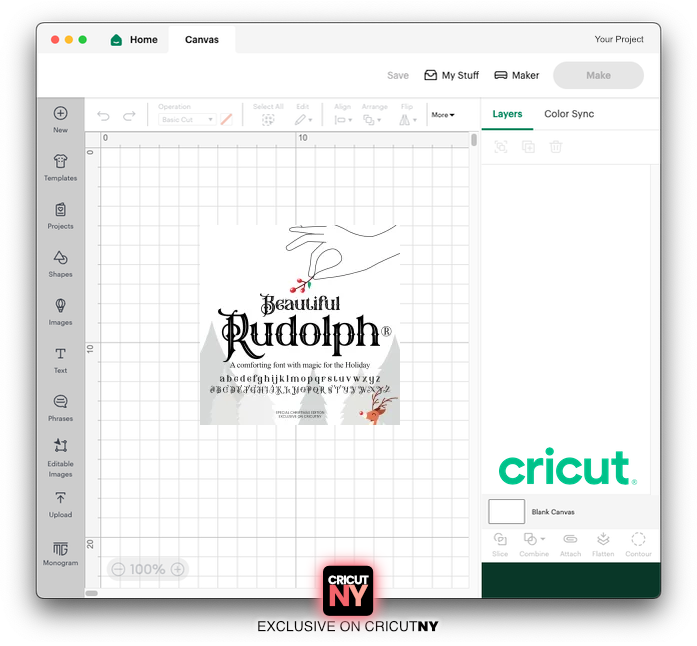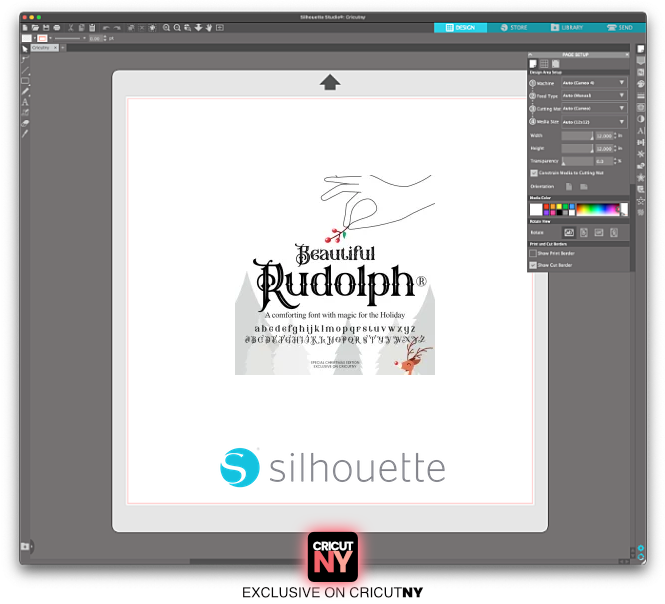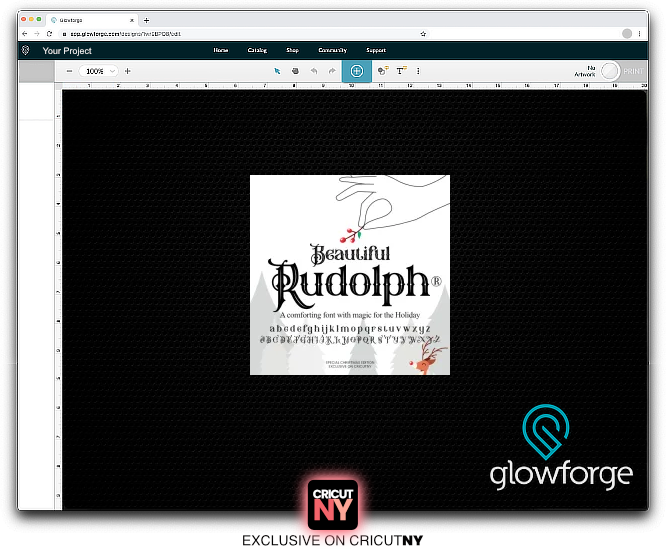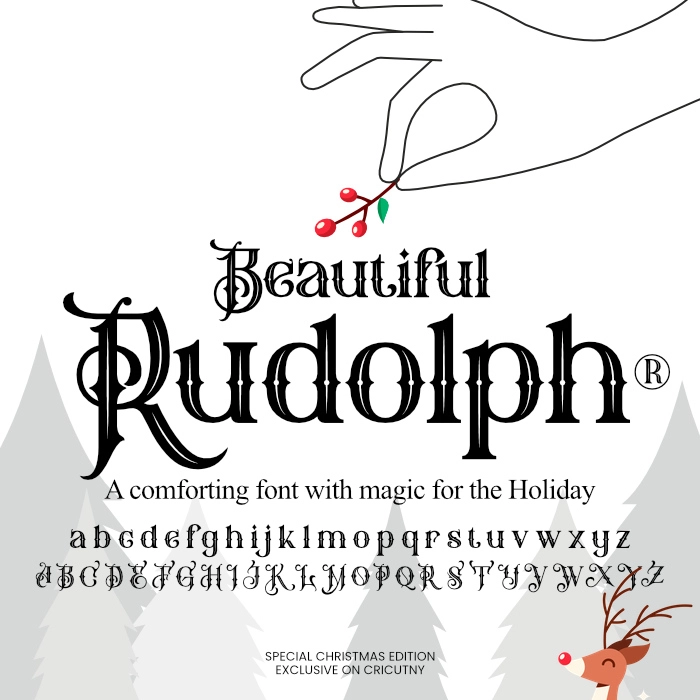
Best Christmas Font On Cricut
There is plenty of beautiful Christmas font out there, but I finished creating this awesome font for Christmas today. I named it “Rudolph” from the Rudolph the Red-Nosed Reindeer. And I have to admit, I am in love with the font. It’s straight from the north pole! I am adding this font as one of the best Christmas fonts for Cricutbut of course, the font works on any other cutting machine and design application, and, yes, it works even with Canva.
I wanted this font to comfort you by bringing magic from the Santa world. I am convinced you can use the font for your Christmas DIY project on Cricut. The newest Christmas movie with Santa Claus on Netflix (The Christmas Chronicles) has a similar font on their title; kids will indeed feel Santa is not that far.
Think of printing your kid’s name, or what about a message from Santa himself on an old-style paper that you can cut on your Cricut machine? There are so many uses for this font. I know many of you like to print names on tumbler bottles; what about your name in Santa’s font?
The font is very easy to use in the Cricut design space. The colour can be easily changed with one click, and the font can also be resized.
The Rudolph Christmas Font: